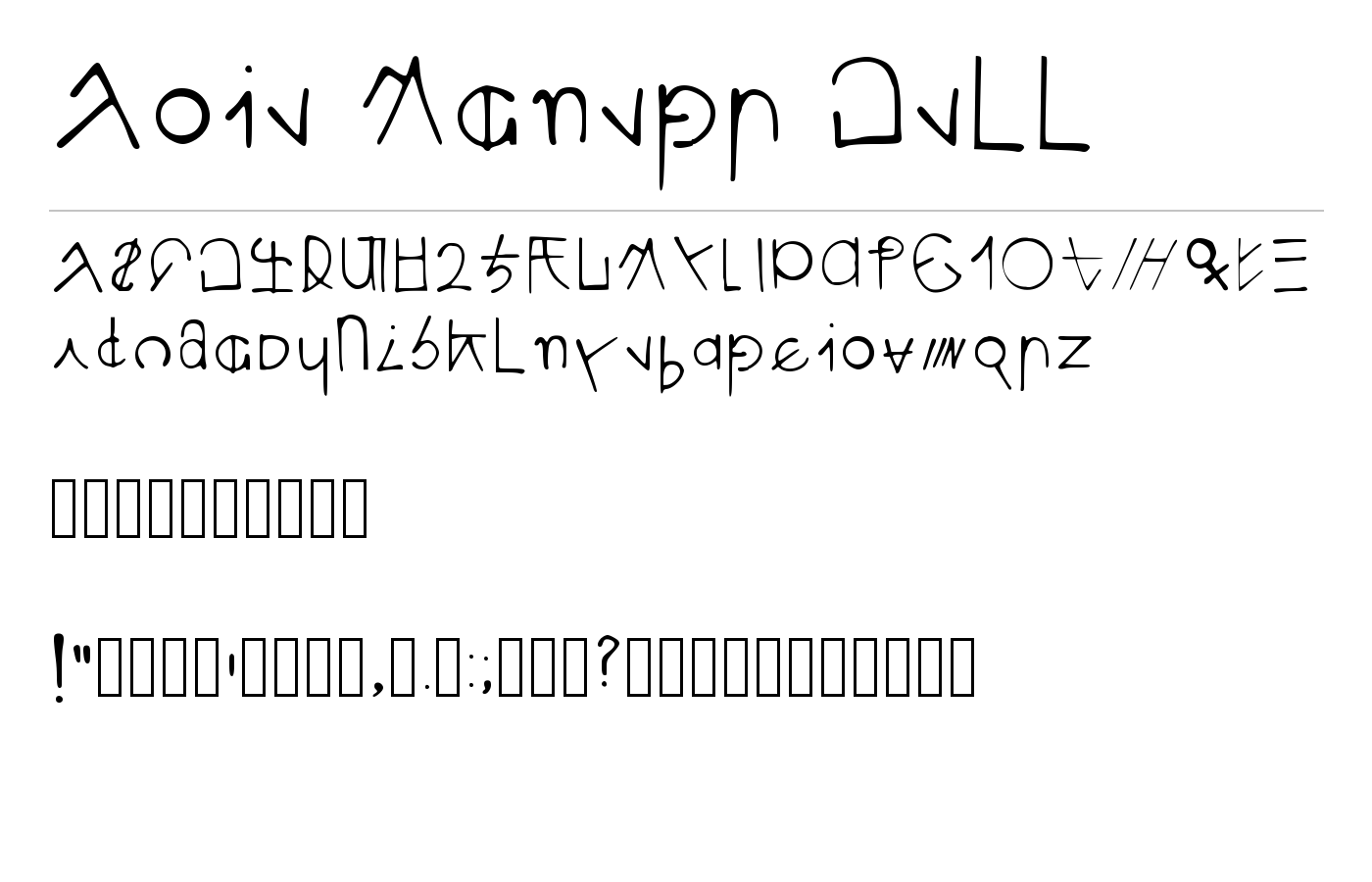
Auto Memory Doll Font offers a unique, hand-drawn look with an abstract, almost cryptic style that feels playful and mysterious. Its irregular, thin strokes and unconventional letter shapes create an artistic vibe, making it ideal for creative projects like fantasy titles, game designs, or experimental branding where a whimsical and otherworldly impression is desired.
Auto Memory Doll Font